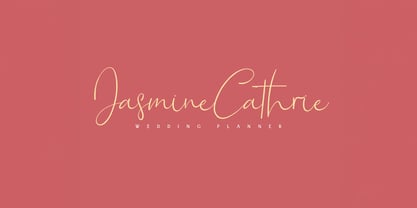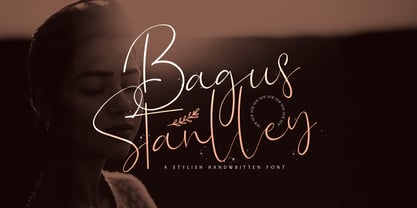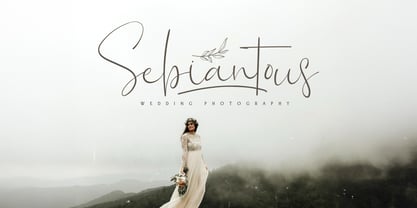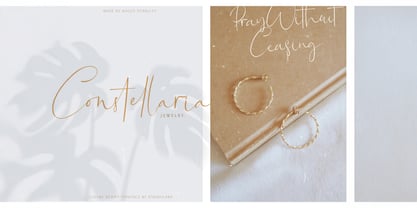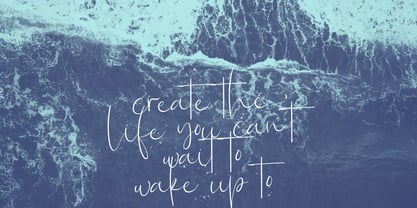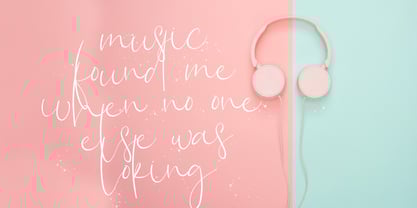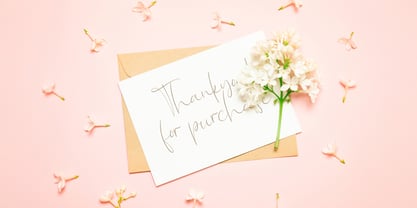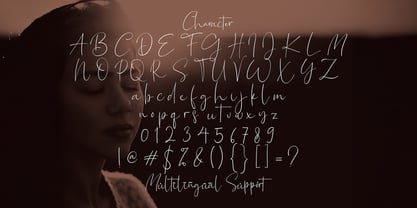
Bagus Stanlley
by Stringlabs Creative Studio
The Bagus Stanlley Font Family was designed by Virgiawan Listanto and published by Stringlabs Creative Studio. Bagus Stanlley contains 1 styles. More about this family
Bagus Stanlley is a sophisticated and stylish script font that exudes elegance and charm. With its flowing curves and smooth strokes, this font brings a touch of luxury to any project. Whether you're aiming for classic beauty or modern refinement, this versatile font offers a perfect blend of grace and readability.